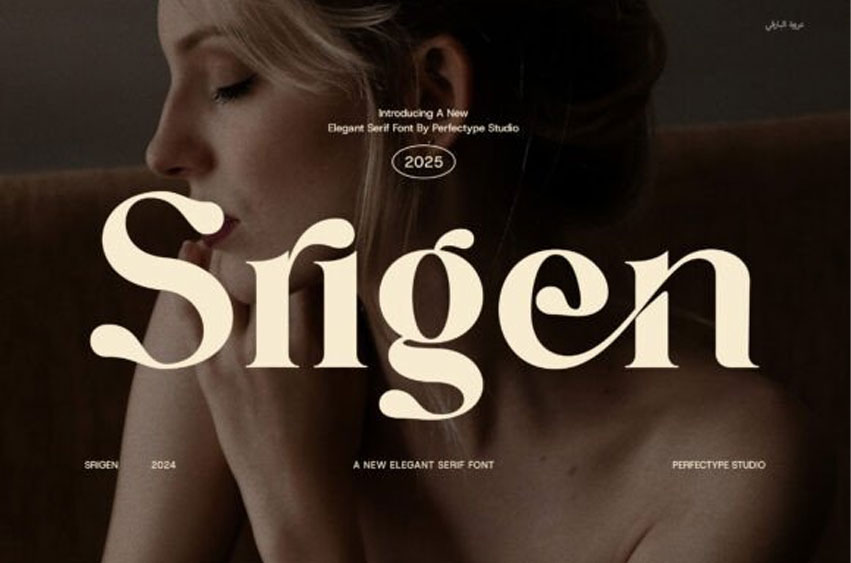
Srigen Font
Srigen Font is an elegant and modern serif font that exudes confidence, creativity, and timeless beauty. Designed with graceful curves and refined details, Srigen brings a sense of luxury and professionalism to your work while offering high versatility for a wide range of applications.
Srigen is distinguished by its unique ligatures and artful alternate characters, crafted to create visual harmony and flow in every composition. This typeface blends traditional serif structure with a clean, contemporary edge, making it the perfect choice for logos, branding, web design, and editorial projects.
From magazines and lookbooks to product packaging, advertisements, and boutique branding, Srigen adapts effortlessly across both print and digital platforms. It works beautifully in fashion campaigns, beauty brands, wedding invitations, restaurant menus, and luxury product labels, bringing a high-end feel to every project it touches.
Designed for designers who demand both style and functionality, Srigen offers a wide range of stylistic alternates and custom ligatures, allowing you to create expressive, polished typography with a distinctive voice. Whether you’re building a modern minimalist identity or a more decorative, ornate layout, Srigen offers the flexibility to match your vision.
Its balanced proportions and elegant contrast ensure strong readability, while its subtle flourishes add character and depth. Srigen is ideal for everything from headline text to signature logos, giving you the freedom to craft standout designs with ease.